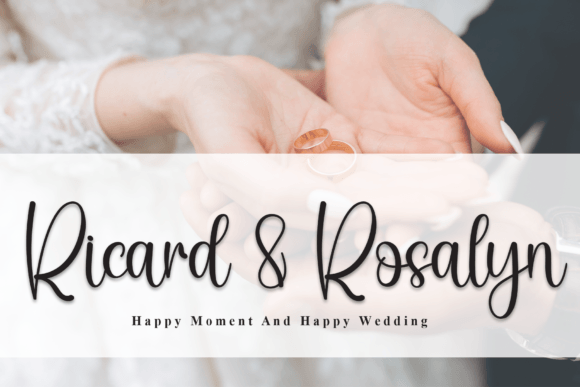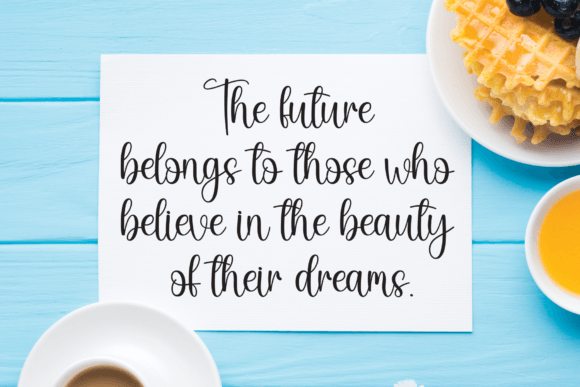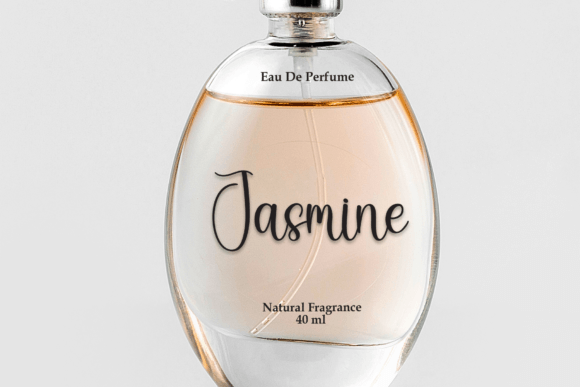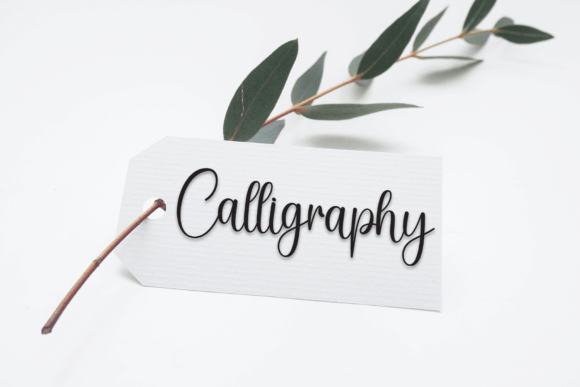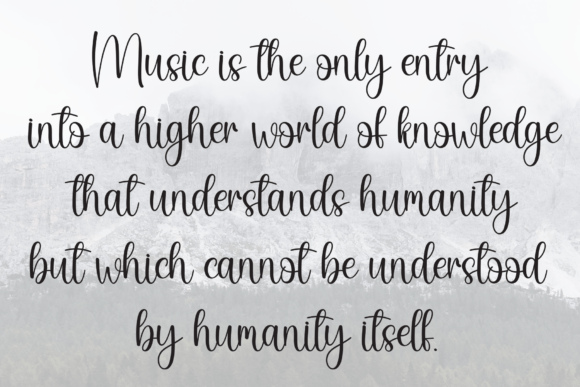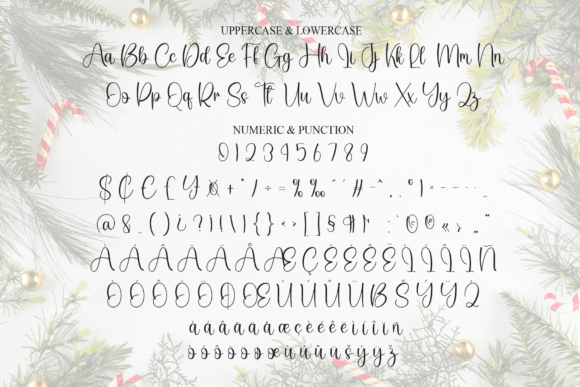
The Magic of the Christmas Font: Bringing Warmth to Your Designs
It’s that time of the year when creativity knows no bounds, and the excitement of designing for the holiday season is palpable. You’re brainstorming ideas for a Christmas card, a festive logo, or a holiday invitation, and you want it to be perfect. As you browse through your font collection, one name stands out – Christmas Font. This elegant handwritten script font is a game-changer for designers, adding a touch of sophistication and warmth to any project.
With its flowing curves and delicate strokes, the Christmas Font is a versatile tool that can elevate your designs from ordinary to extraordinary. Whether you’re a seasoned designer or a newcomer to the world of typography, this font is sure to inspire your creativity and bring a personal touch to your work.
Christmas Font Key Features
- Font Family: Christmas Font is a decorative script font designed to evoke a festive atmosphere.
- Unique Characteristics: Features a hand-drawn, cursive design with a mix of uppercase and lowercase letters, and includes ornaments and decorations to enhance the festive feel.
Designer Review: Christmas Font
Overall, I think Christmas Font has some great qualities, but also some areas for improvement. Let’s dive in!
- The font is highly customizable, allowing users to adjust the colors, sizes, and styles to fit their design needs.
- The font includes a variety of festive icons and graphics, such as snowflakes, holly leaves, and candy canes, which can add a fun touch to designs.
- The font is easy to read and understand, making it suitable for both digital and print designs.
- The font is only available in a limited range of styles, which may not be suitable for all design projects.
- The icons and graphics included with the font are quite basic and may not be sufficient for more complex designs.
- The font does not include any advanced typography features, such as ligatures or swashes.
While Christmas Font has some great qualities, its limitations may make it less suitable for more complex or professional design projects. However, it can still be a great choice for simple designs or DIY projects where a festive touch is needed.
Use Christmas Font to add a festive touch to your holiday designs, such as:
- Invitations and party invitations
- Holiday cards and gift tags
- Social media graphics and ads
- Printable art and decorations
Experiment with different font sizes, colors, and styles to create a unique and eye-catching look.